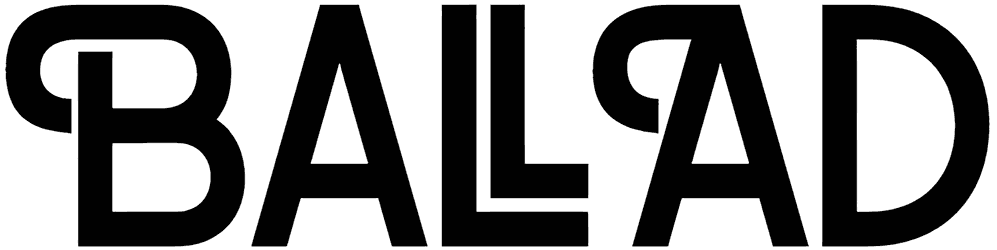
Ballad Font
We believe that giving high-quality graphic content to the customer is the best way to attract their attention and satisfy them. If you have the same opinion, don’t overlook a sans serif font such as Ballad.
All of its characters are designed in two distinctive styles and broaden your horizons in the middle of designing artwork including posters, magazines, and billboards. Needless to say that due to its unique style, it carries a feeling of dynamic, modernity, and comfortability.